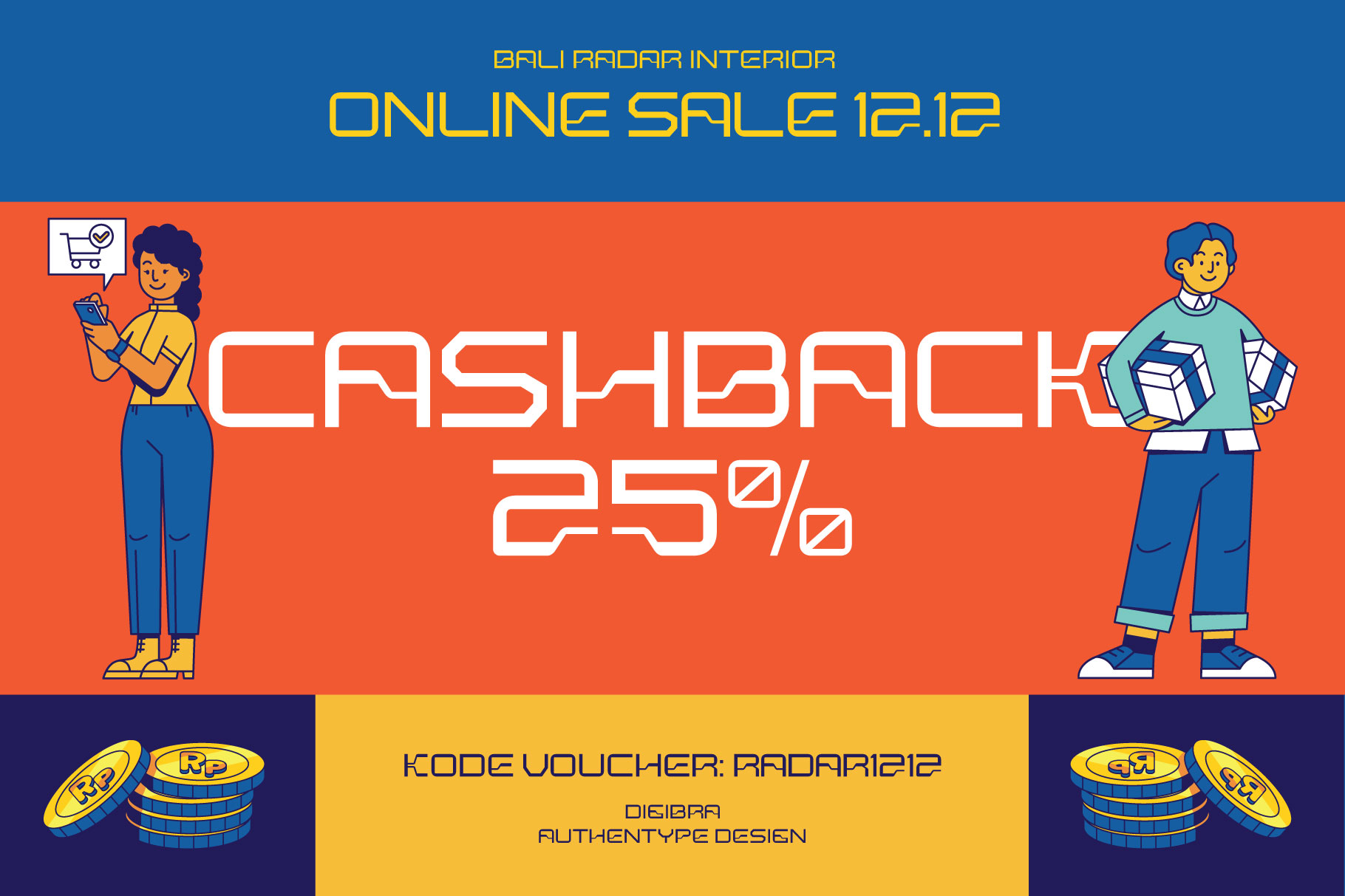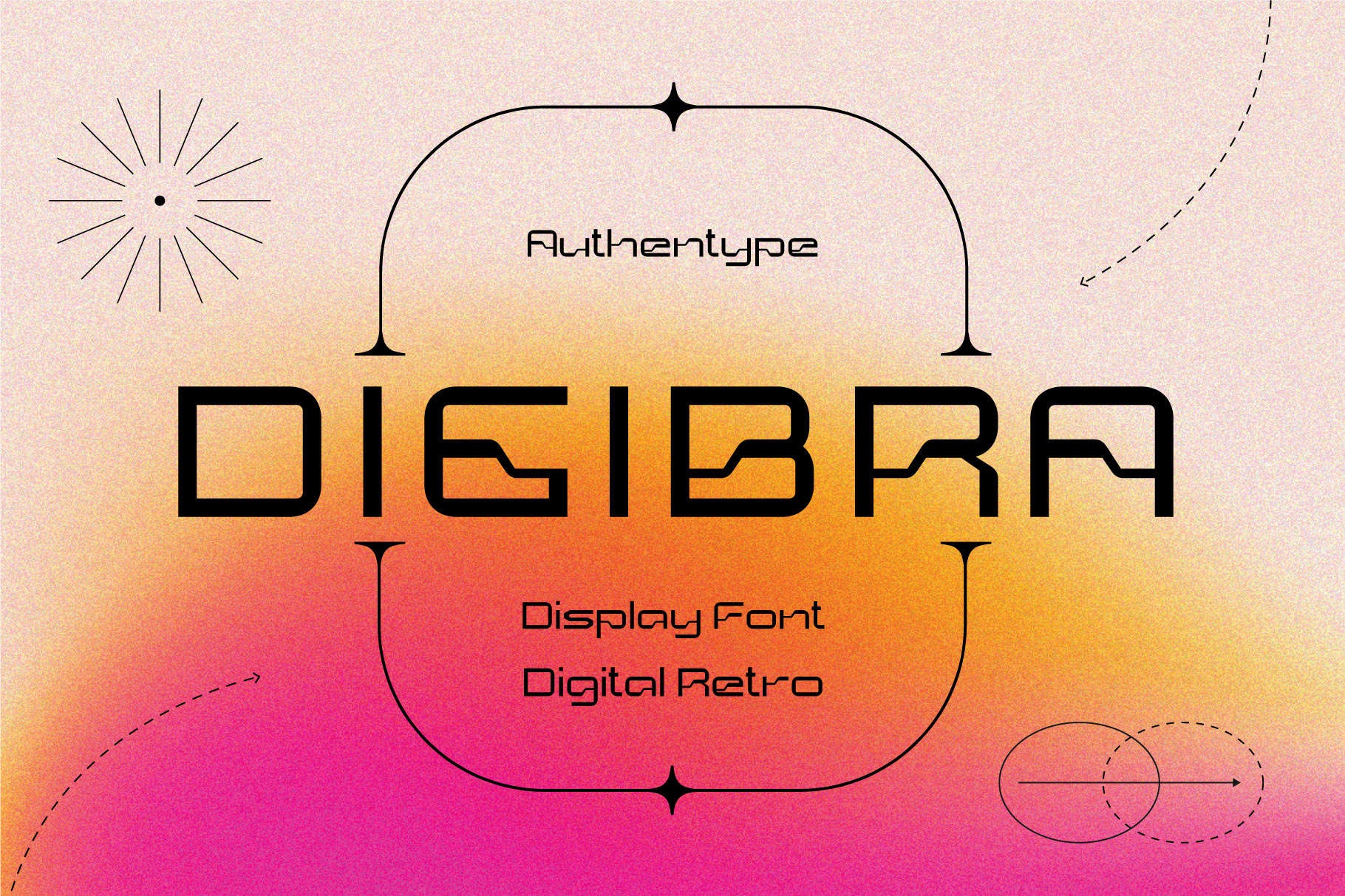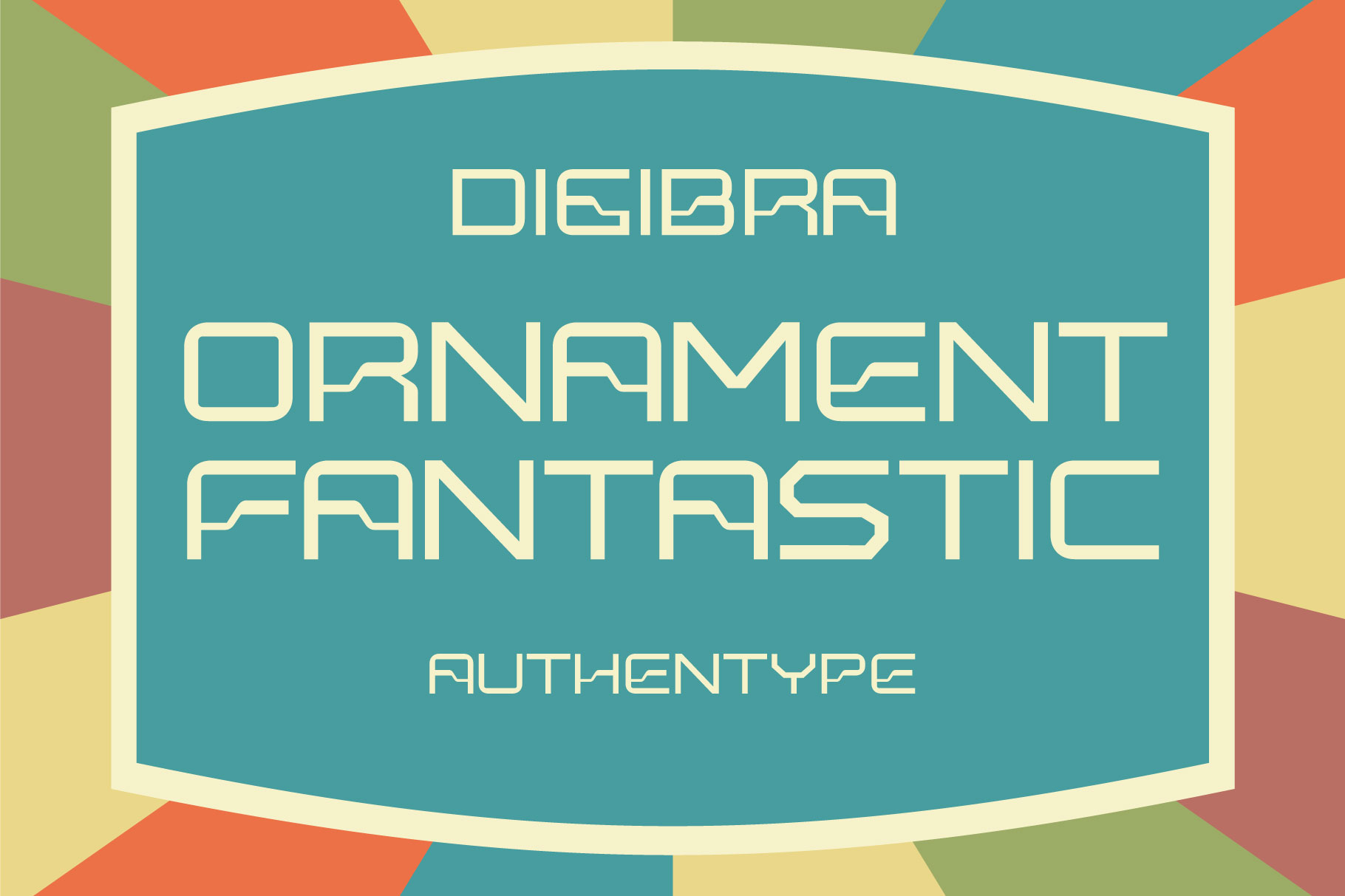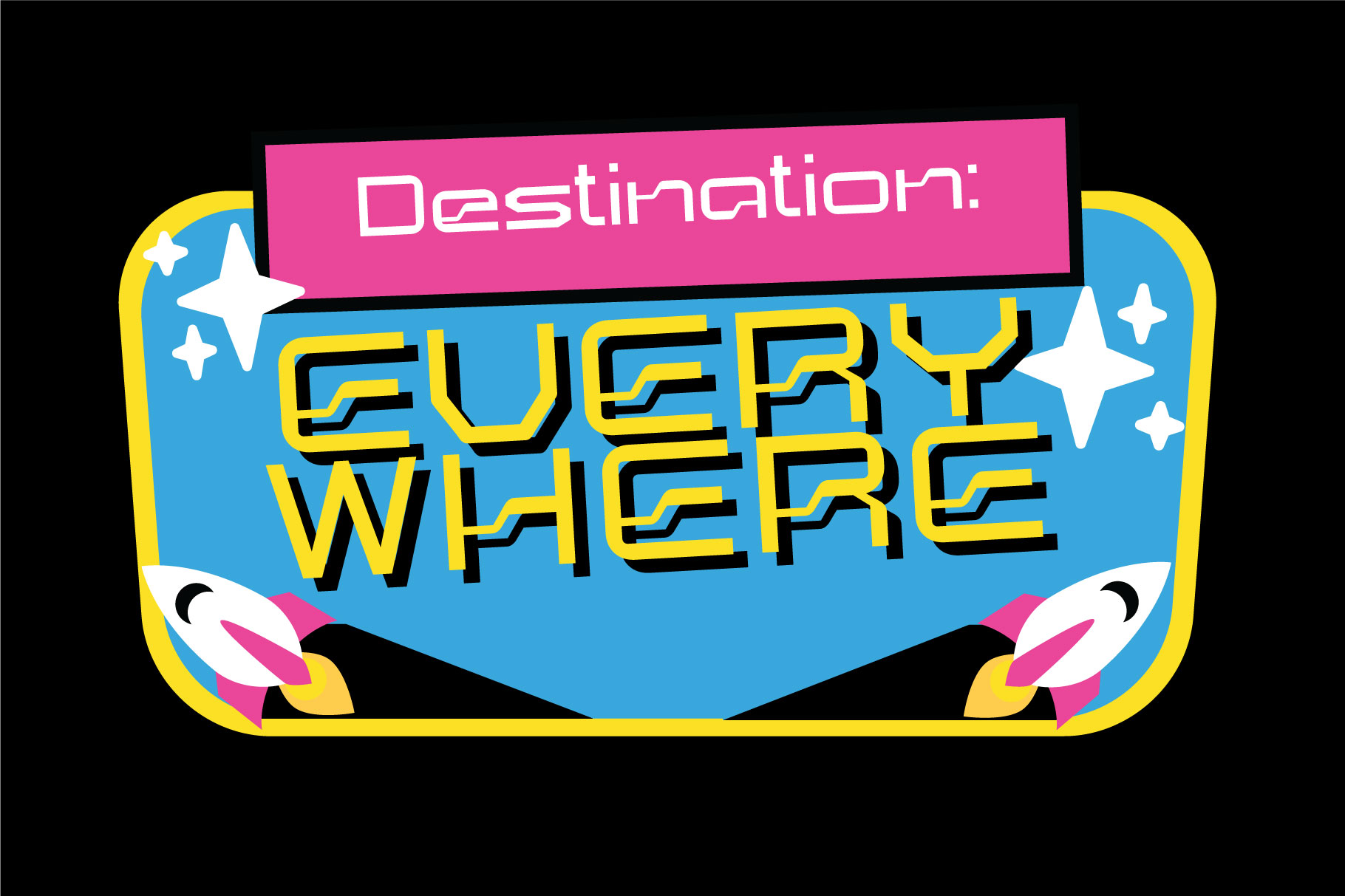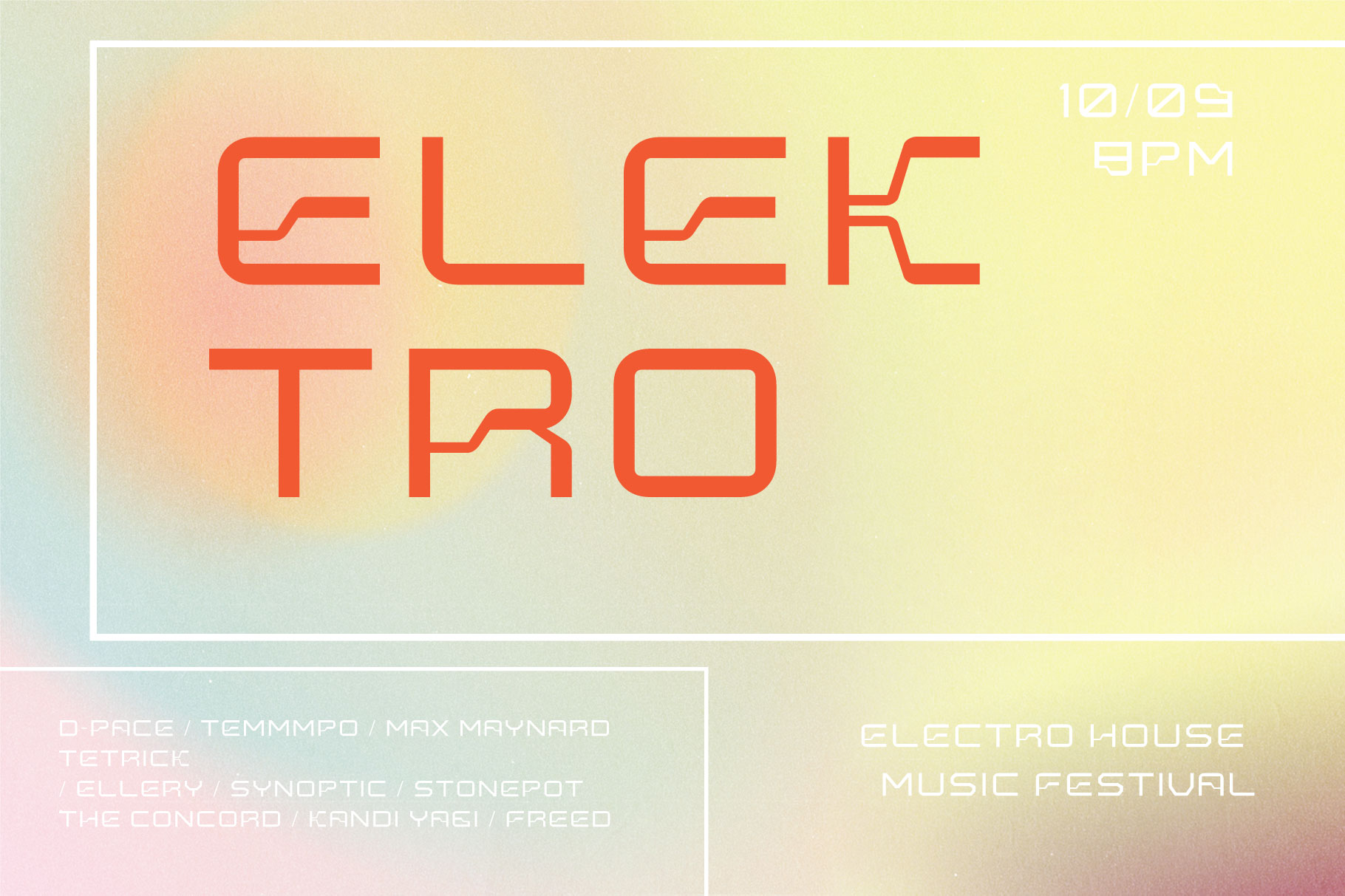
Digibra Display Font
Retro digital display font Digibra has a special and very whimsical letterform that reinforces the feel of an old digital concept but is very appealing for today.